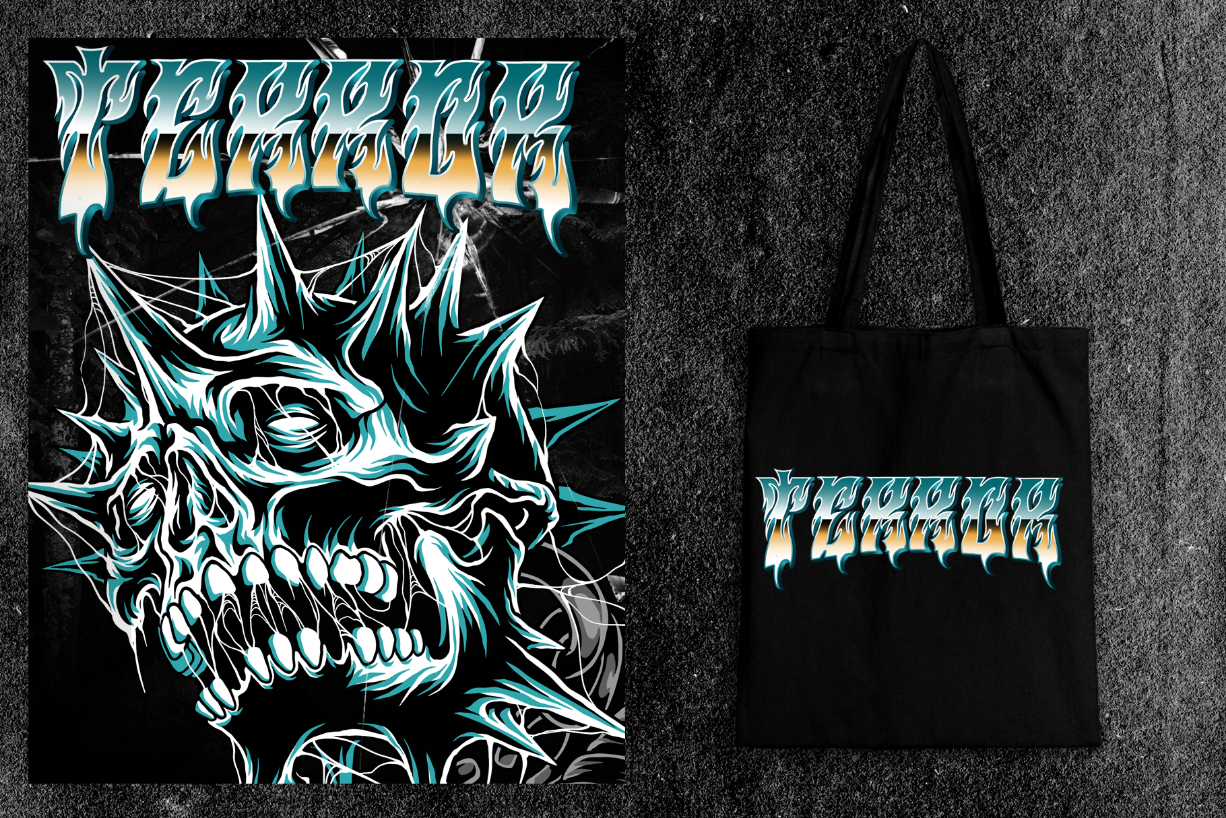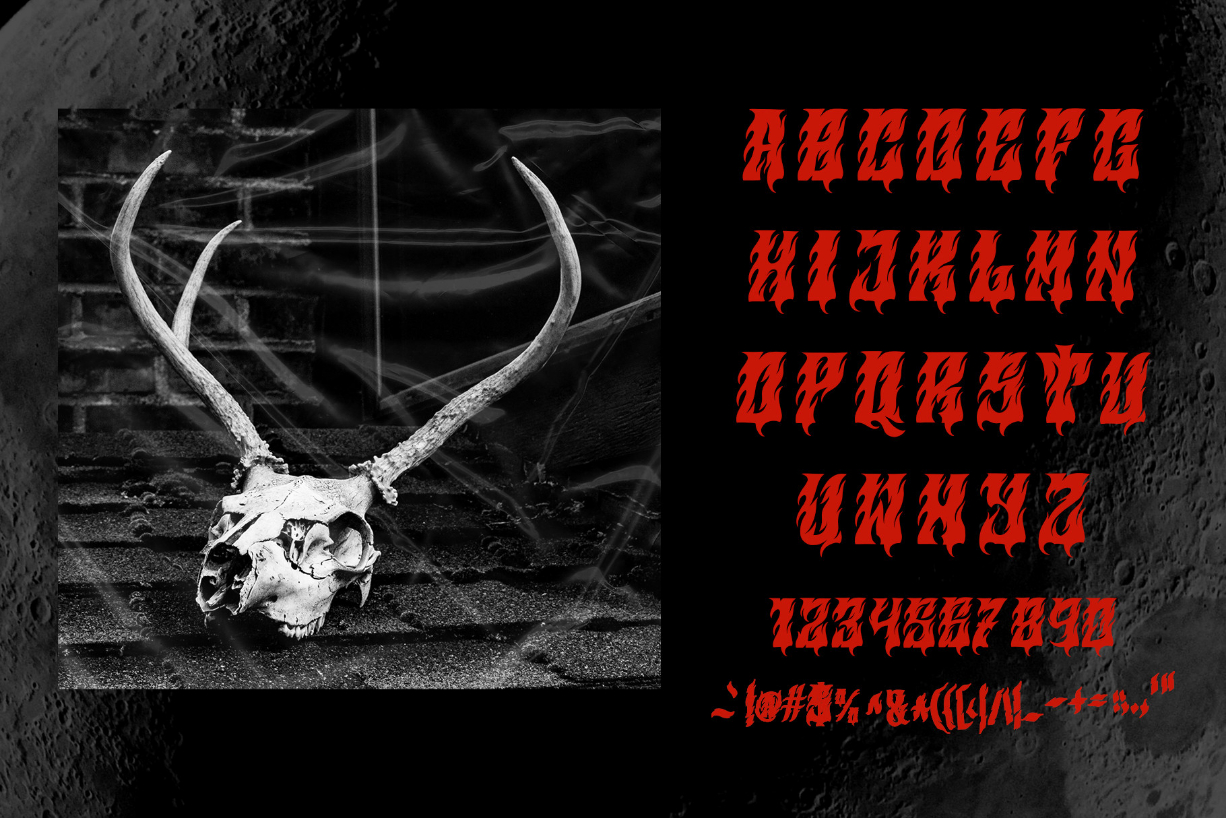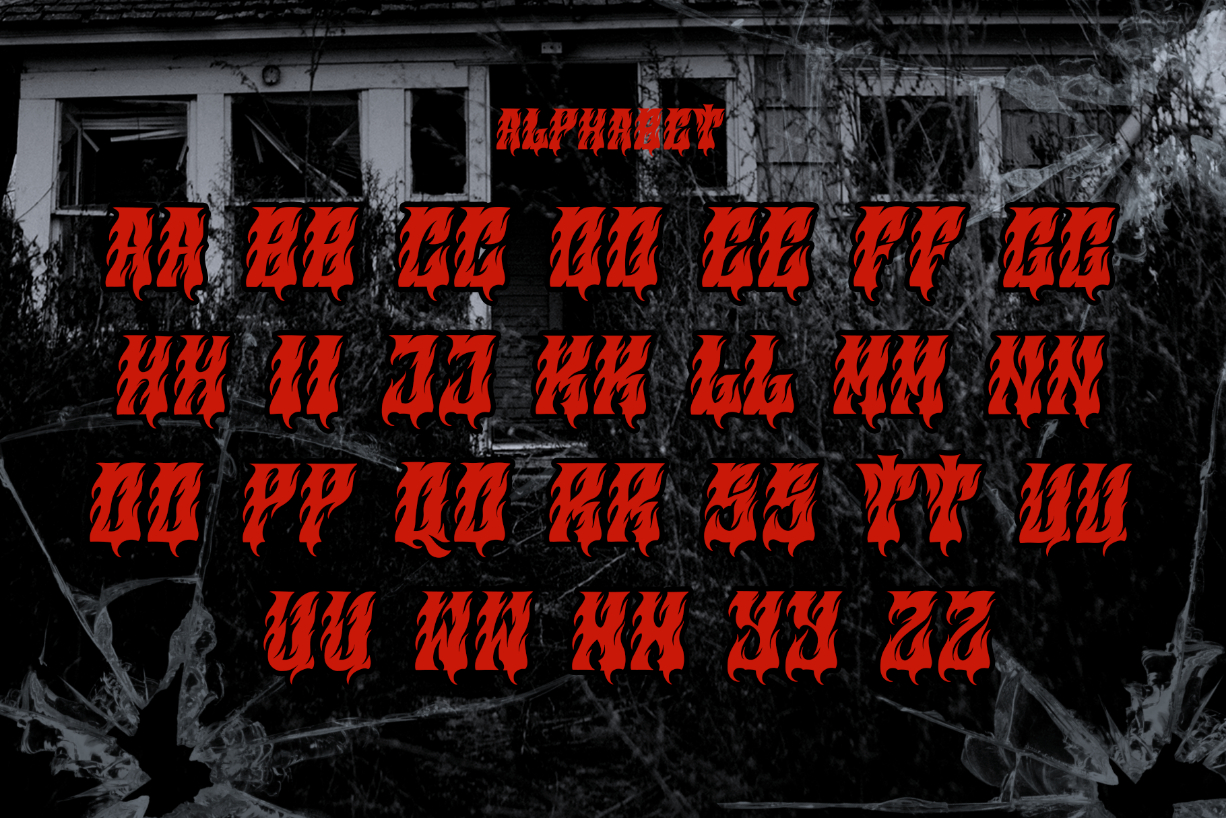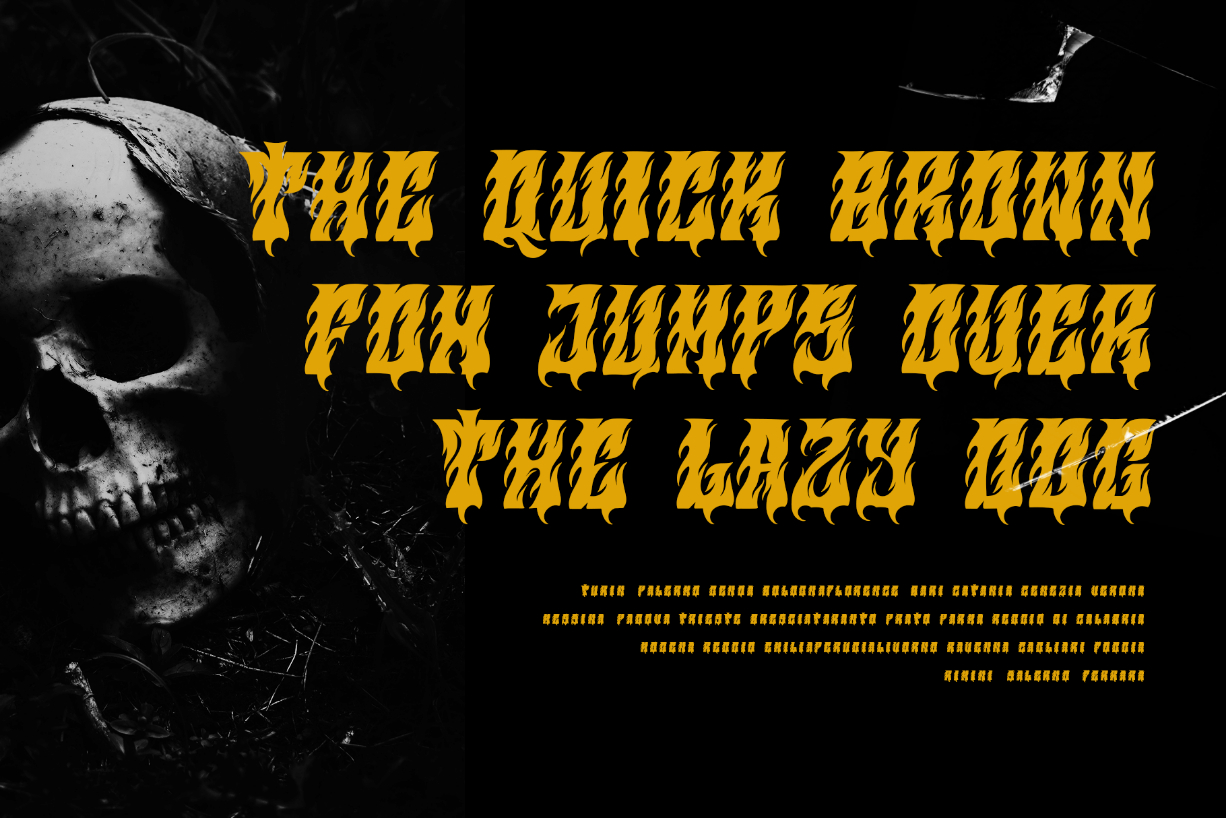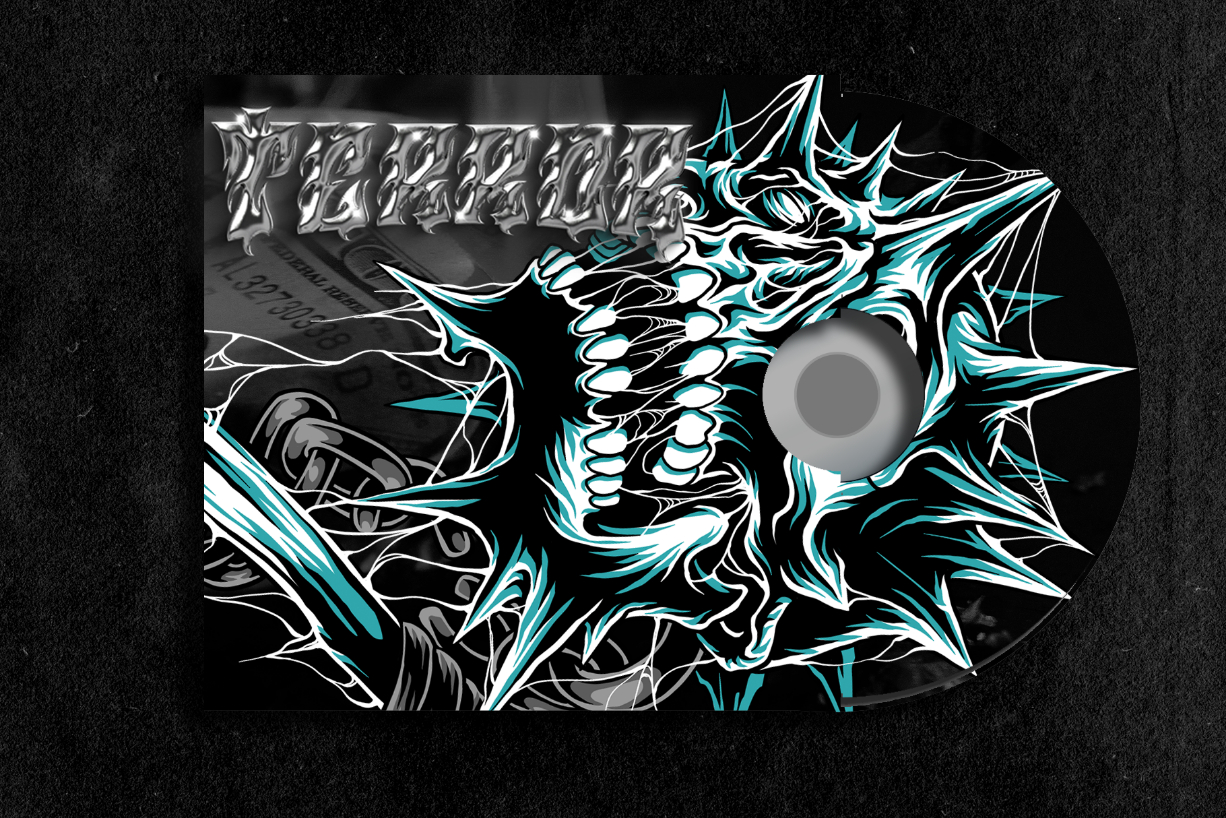
Destruc Font
About Destruc Font
Destruc is a distinct, highly detailed blackletter font. It would be a great choice for exquisite death metal designs, tattoo business branding, logos, vintage designs, and more.